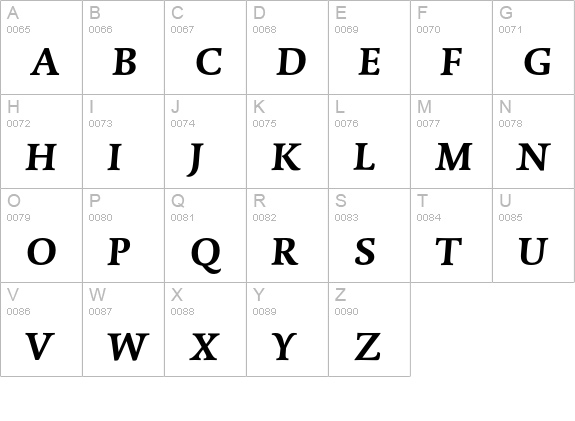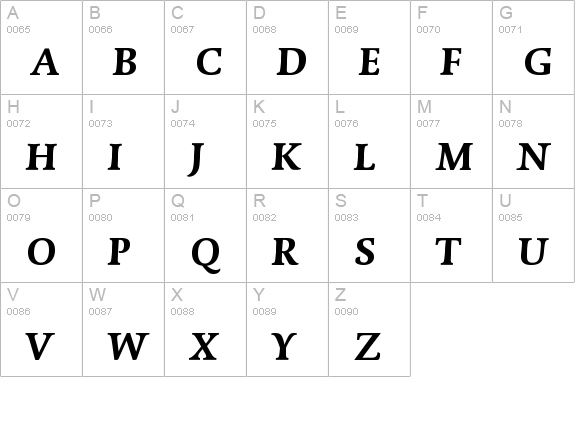
The DTLDorianT-BoldItalic font is a bold and stylish typeface that exudes confidence and sophistication. Its italicized design adds a touch of elegance to any text, making it perfect for headings, titles, and other prominent elements in your design projects. This versatile font is suitable for a wide range of applications, from branding to editorial design. What's even better is that the DTLDorianT-BoldItalic font is available for free download at FontsMarket.com. Now you can enhance your designs with this stunning font without any cost. Don't miss out on the opportunity to add this unique and eye-catching typeface to your font collection today!